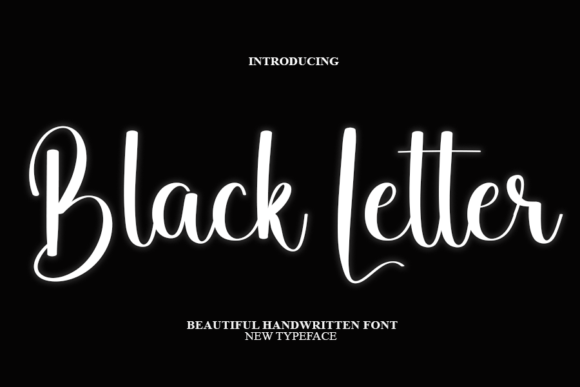
The Beauty of Black Letter: A Delicate Handwritten Font
I’ll never forget the time I was working on a project for a client who wanted a unique and cool design for their invitation suite. I had been searching for the perfect font for hours, but nothing seemed quite right. That was when I stumbled upon Black Letter, a delicate handwritten font that instantly caught my eye. ✨ In this article, I’ll share my experience with Black Letter, its features, and how to make the most of it in your designs.
An Honest Review of Black Letter
So, what do I love about Black Letter? Here are a few things that make it stand out:
- 💕 Elegant and Refined: Black Letter has a sophisticated, high-end feel that’s perfect for invitations, titles, and other designs where you want to make a statement.
- ✅ Versatile: This font can be used for a wide range of projects, from food product labels to event invitations, and even social media graphics.
- 🎨 Hand-Drawn Charm: Black Letter has a beautiful, hand-drawn quality that gives it a unique and personal touch.
Of course, no font is perfect, and Black Letter has a few quirks to be aware of:
- 🤔 Limited Multilingual Support: While Black Letter is a beautiful font, it may not have extensive multilingual support, which could limit its use for projects that require non-English text.
- ⚠️ Not Suitable for Body Text: Due to its delicate nature, Black Letter may not be the best choice for body text or long blocks of text.
A Practical Guide to Using Black Letter
The Story Behind Black Letter
While the true story behind Black Letter may be unknown, it’s easy to imagine a designer pouring their heart and soul into crafting such a beautiful font. Perhaps they were inspired by traditional calligraphy and hand-lettering techniques, or maybe they simply wanted to create a unique and elegant font for their own design projects. Whatever the inspiration, Black Letter is a true gem that deserves to be celebrated.
| Font Name | Black Letter Font |
| Author | ade studio |
| What is Black Letter? | Black Letter is a delicate handwritten font designed for creative projects, such as invitations, titles, and food product labels. |
| Is Black Letter suitable for body text? | No, Black Letter is not recommended for body text due to its delicate nature. |